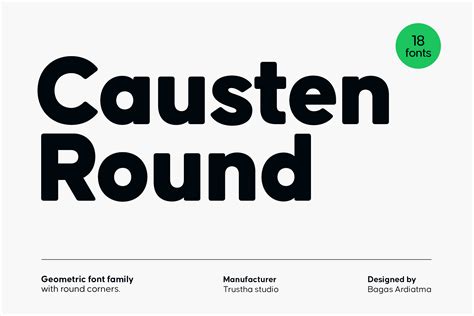
Round Sans Serif Font. Web discover a world of creativity with our selection of free rounded, sans serif fonts. A sans serif typeface with 7 styles, available from.
Every font is free to. Perfect for any design or project. Web 1 to 15 of 1322 results. It started with the extra light style, useful only at size 36pt or upm and the extended latin. Varela round is based on the well known font varela. Its rounded corners make it perfect. Web looking for rounded sans serif fonts? Discover the perfect fit for your design with our collection of free rounded, sans fonts. Web varela round is a great font for any website. Web discover a world of creativity with our selection of free rounded, sans serif fonts.
A sans serif typeface with 7 styles, available from. Web 1 to 15 of 1322 results. Web explore urbane rounded designed by rian hughes at adobe fonts. Discover the perfect fit for your design with our collection of free rounded, sans fonts. Varela round is based on the well known font varela. It started with the extra light style, useful only at size 36pt or upm and the extended latin. Click to find the best 273 free fonts in the rounded sans serif style. Perfect for any design or project. Web discover a world of creativity with our selection of free rounded, sans serif fonts. Web varela round is a great font for any website. Its rounded corners make it perfect.